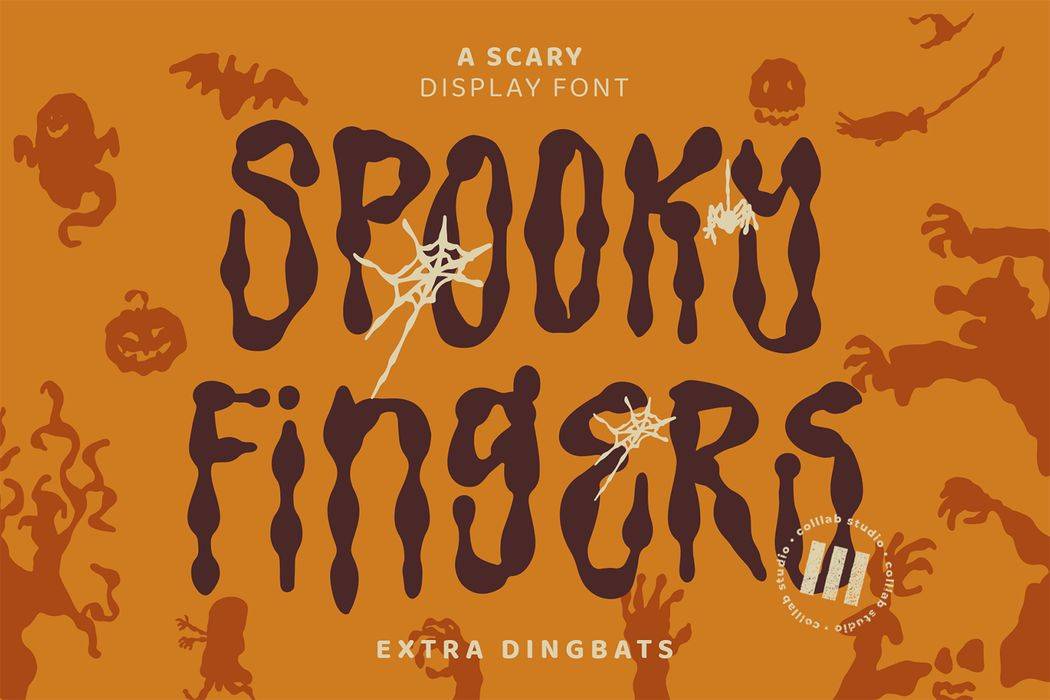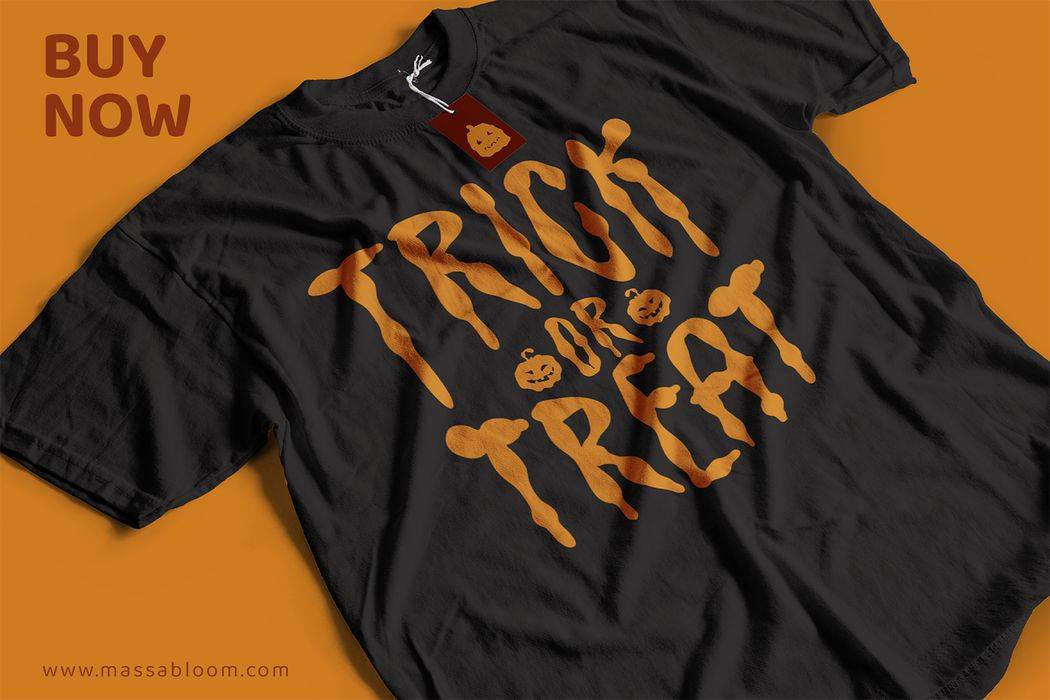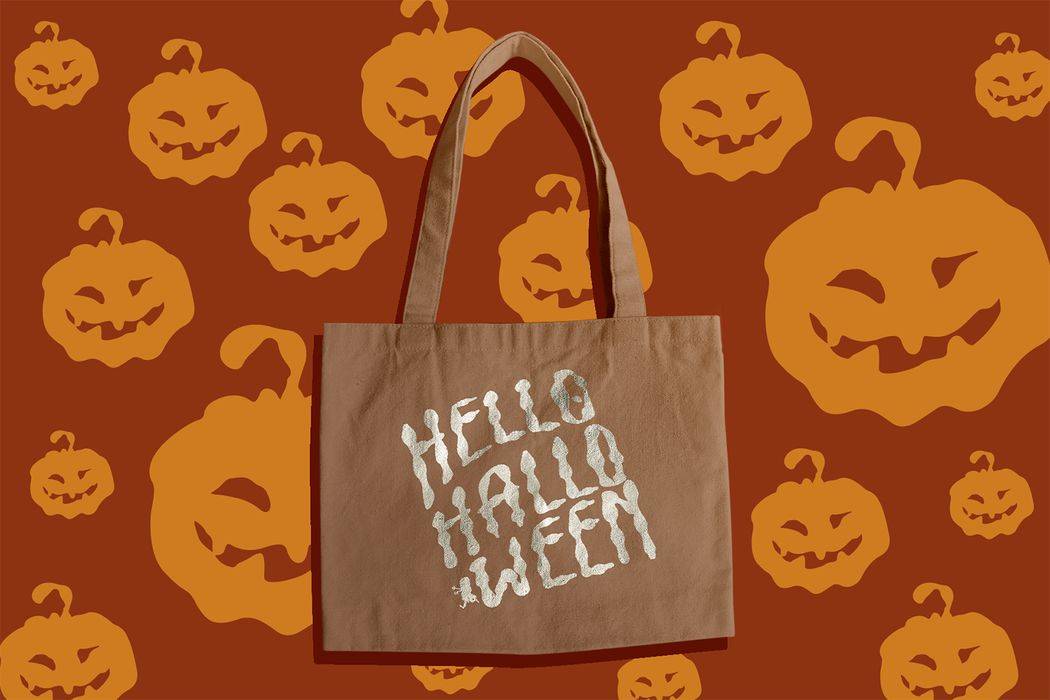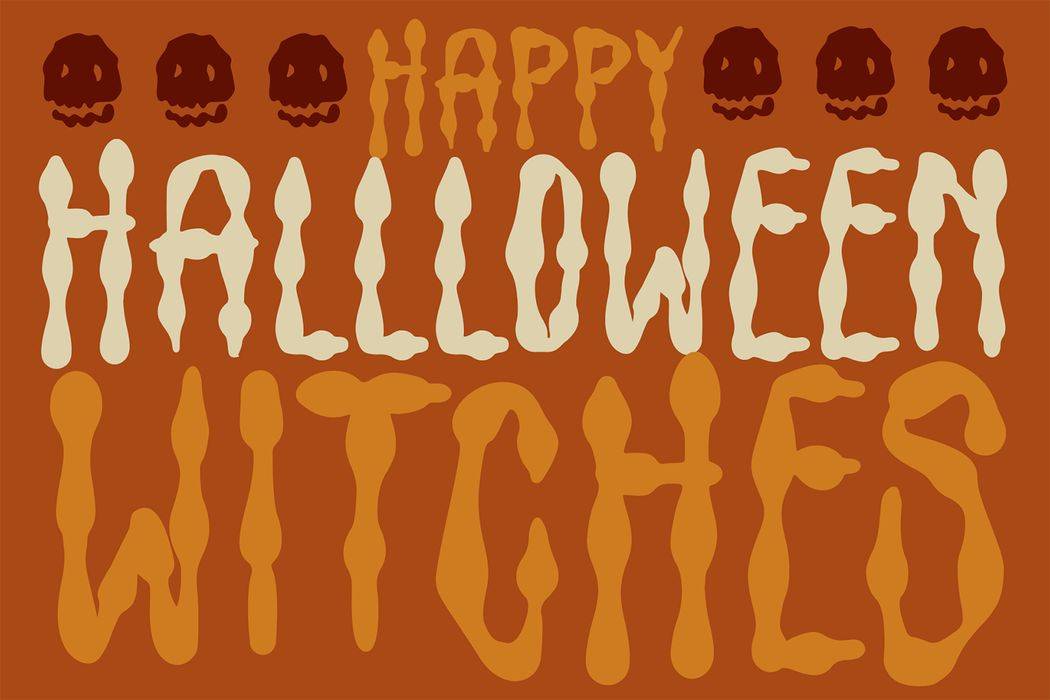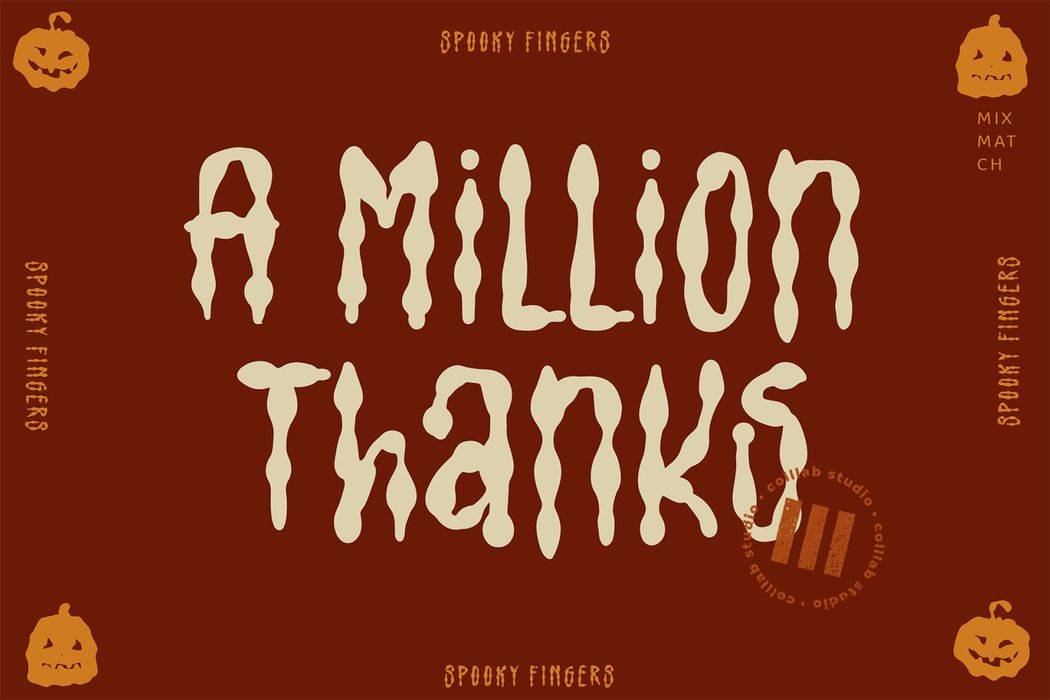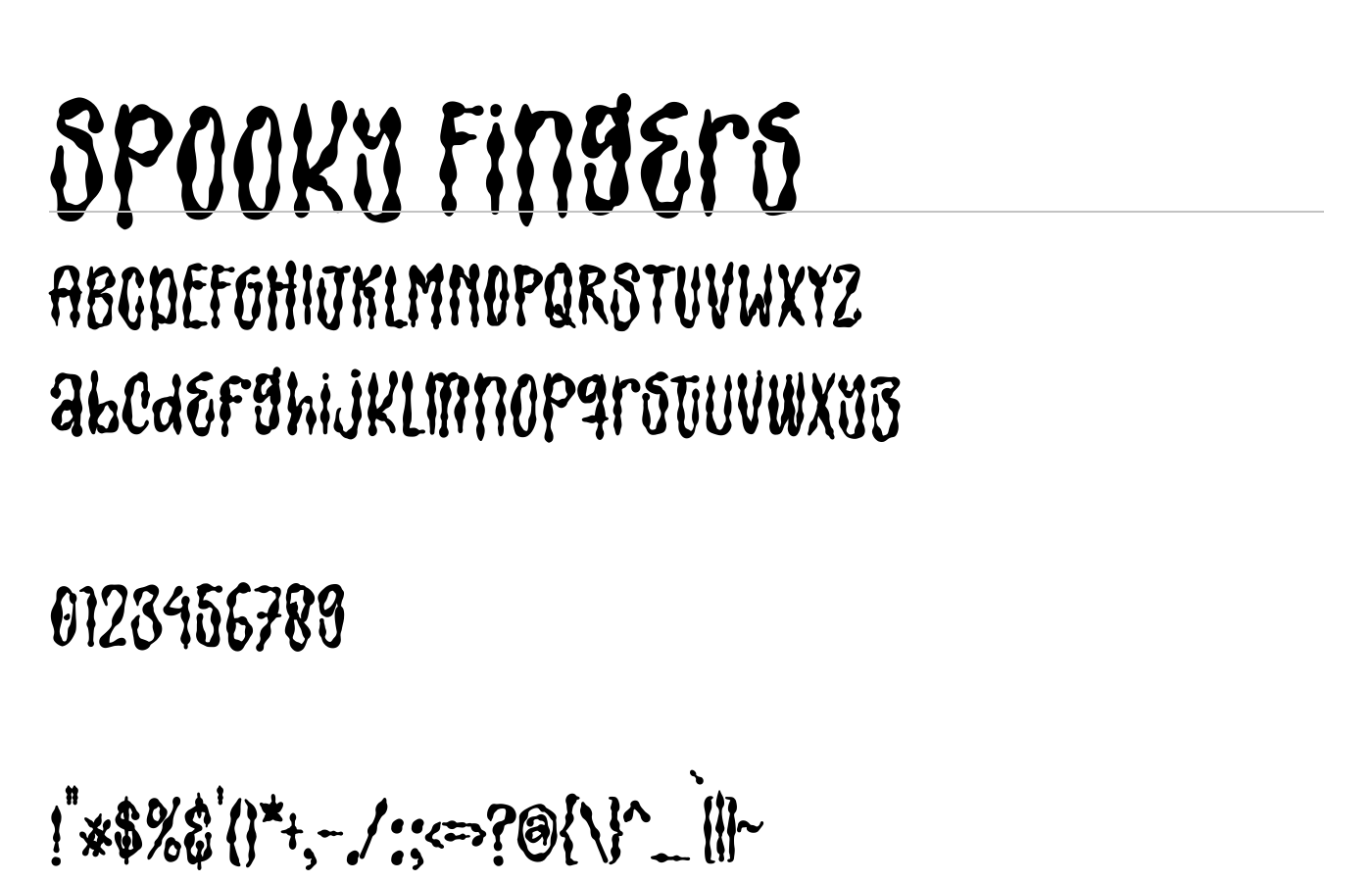
Spooky Fingers is a unique, playful display font with an eerie, dripping effect that gives the impression of fingers or slime. Its irregular shapes and tall, narrow characters make it perfect for Halloween-themed designs, posters, and fun, spooky branding that wants to stand out with a quirky, creepy vibe. This font adds a touch of mystery and fun, making it ideal for creative headlines and decorative uses rather than body text.
Spooky Fingers Font
About Spooky Fingers Font
| Font family | Spooky Fingers Font |
| Designer | Colllab Studio Team |